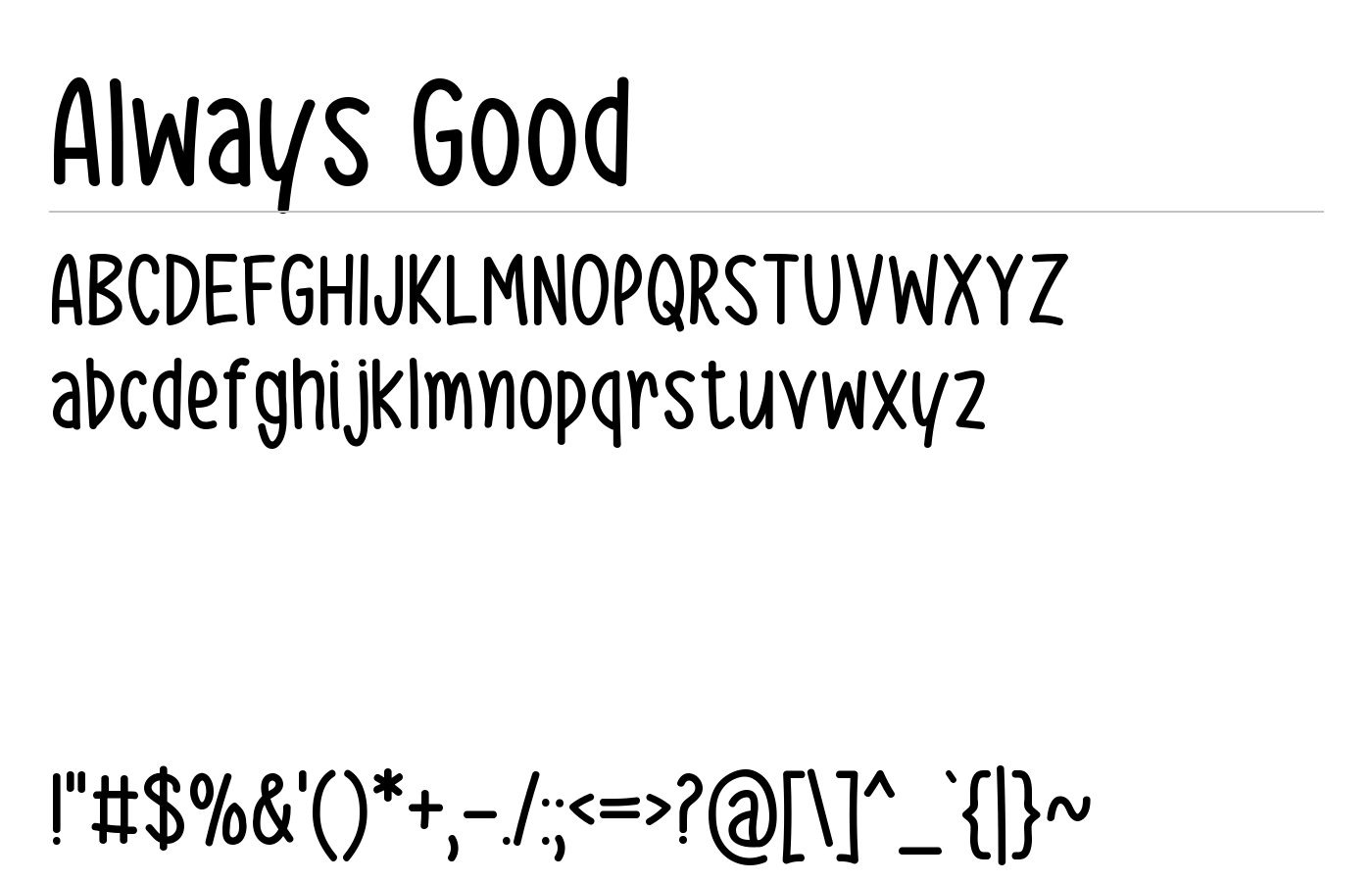
Always Good Font is a playful, hand-drawn sans serif typeface with a warm, friendly feel. Its tall, narrow letterforms feature rounded edges and a slightly irregular stroke, giving it a casual, approachable vibe ideal for informal designs, children's books, or creative branding. This font works well in headlines, logos, and packaging where a personal, inviting touch is desired.
Always Good Font